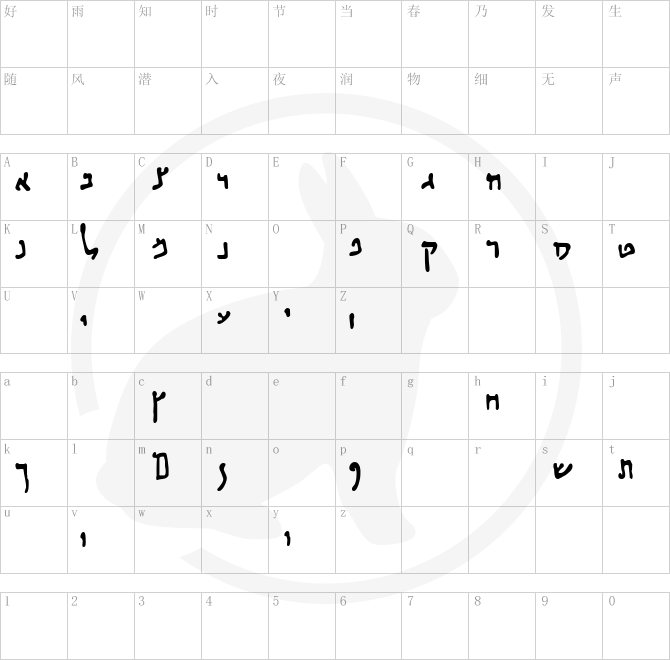
- Font Name:HABBAKUK
HABBAKUK.ttf is a very beautiful artistic font, HABBAKUK.ttf is widely used in the design and printing of various books and pictures,HABBAKUK.ttf has a strong visual impact,HABBAKUK.ttf is a commonly used font in newspapers, magazines and books, and is used in posters, e-commerce Poster design, store design, logo design, font design and other fields.HABBAKUK.